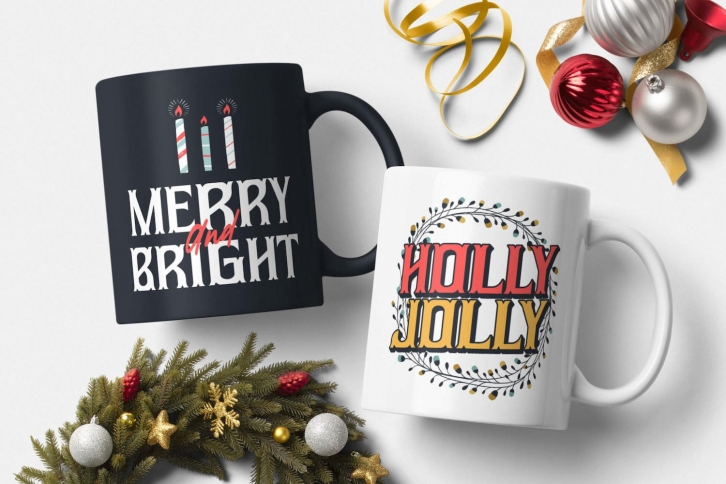
Bright is a gorgeous font that was realeased on December 14, 2021. The font can be used in many style contexts and design environments. Perfect for invitations, magazines, websites, logos, and more! It was designed by Runsell and the file size is 12.34 MB. Thanks for checking out this font!